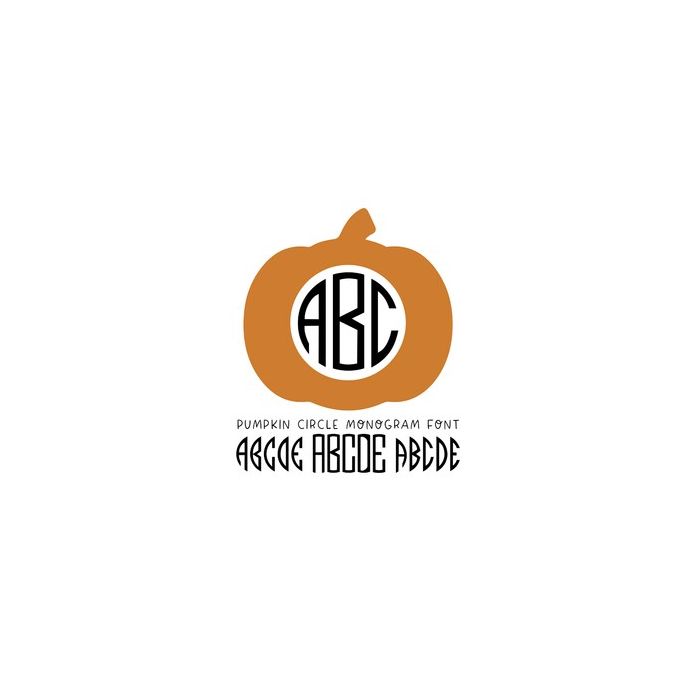
Pumpkin Circle Monogram font. Uppercase characters are the left letters in the circle. Lowercase characters are the center letters, and punctuation (starting with ~!@) are the right side letters.